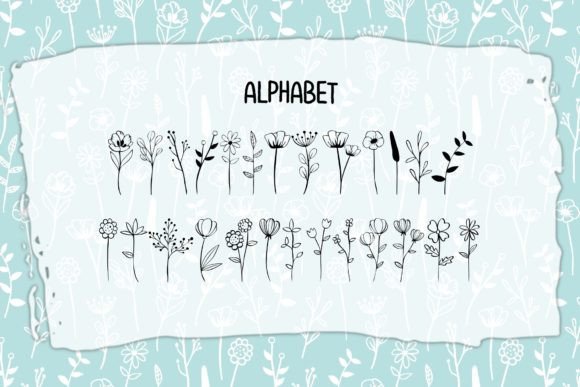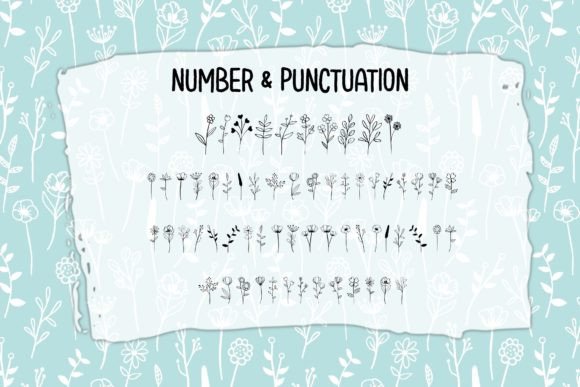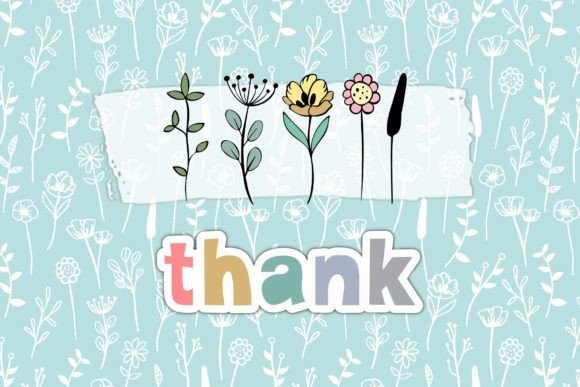
Introduction to Long Stem Font
Have you ever sat at your desk, staring at a blank piece of paper, trying to come up with the perfect design for your creative project? The blank canvas can be intimidating, but the right design resource can make all the difference. That’s where the Long Stem Font comes in – a beautiful, high-quality nature dingbats font that’s perfect for adding a touch of whimsy to your designs.
Whether you’re a seasoned designer or just starting out, the Long Stem Font is a valuable addition to your toolkit. With its unique, hand-drawn style and transparent background, this font is ideal for creating eye-catching logos, wall art, and signs. And the best part? It’s available for a free download, making it accessible to designers of all levels.
Key Features of Long Stem Font
- High-quality vector design, ideal for creative projects requiring a unique touch.
- Comes in a transparent background, allowing for seamless integration with various design elements.
- Each font character is meticulously crafted, with intricate details and fine lines, resulting in a distinctive look.
- Designed to be scalable, maintaining its clarity and precision at various resolutions, from 72 dpi to 300 dpi.
- Perfect for use in digital designs, print materials, and web applications, where a touch of elegance and sophistication is desired.
Honest Review: Long Stem Font
I recently had the chance to work with the Long Stem Font, and I must say it’s been a pleasant experience. This free download has quickly become a go-to resource for my creative projects, thanks to its high quality and versatility.
- ✨ The Long Stem Font is incredibly easy to use, even for those with minimal design experience.
- ✨ The transparent background allows for seamless integration with any design element.
- ✨ The font’s clean and modern aesthetic makes it perfect for a wide range of creative projects.
- ⚠️ The font’s limited character set may not be suitable for projects requiring extensive text.
- ⚠️ The Long Stem Font may not be the best choice for designs where a more dramatic, bold font is required.
Overall, I’m impressed with the Long Stem Font and would highly recommend it to designers looking for a reliable, high-quality design resource. Its ease of use, versatility, and modern aesthetic make it a valuable addition to any design toolkit.
Common Use Cases for Long Stem Font
Long Stem Font is ideal for a variety of creative projects, including:
1. Branding and logo design.
2. Infographics and data visualization.
3. Social media graphics and advertisements.
2. Lobster Font
The Lobster Font is a stylish, cursive font that’s ideal for creative projects requiring a touch of playfulness and whimsy. Its free download and transparent background make it an excellent design resource for designers. When to use: For casual events, social media graphics, and other creative projects that require a fun and lighthearted tone. How it compares to Long Stem Font: Lobster Font has a more casual and relaxed look compared to Long Stem Font, making it suitable for informal events and social media graphics.
Can I customize the Long Stem Font to fit my design needs?
Yes, the Long Stem Font is fully editable, allowing you to customize its appearance to suit your creative project’s requirements. You can adjust font sizes, colors, and styles using your preferred design software.